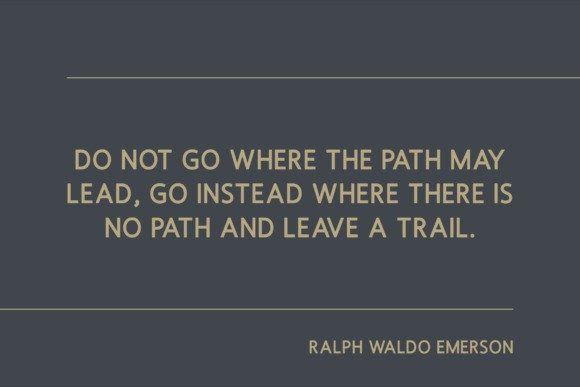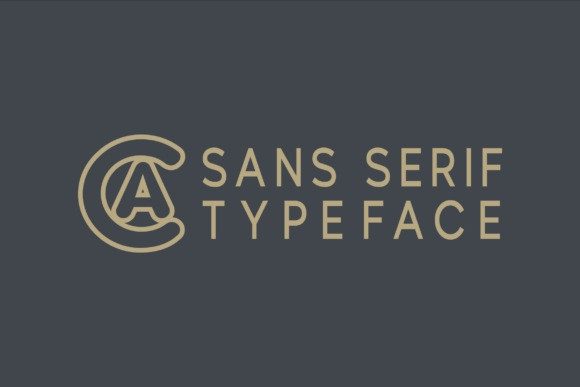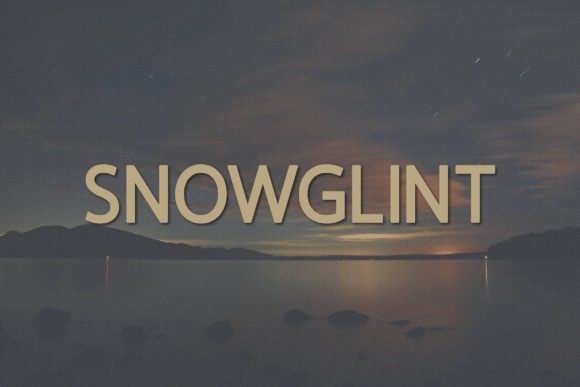
Snowglint Font
Snowglint Font is a clean, elegant sans-serif font that radiates clarity and sophistication.With its crisp lines, balanced proportions, and subtle modern touches, this typeface is perfect for professional and minimalist design work. The font features all uppercase letters, numerals, and essential punctuation—making it ideal for editorial use, branding, tech interfaces, lifestyle blogs, and winter-themed visuals. Its name hints at the soft sparkle of snow in twilight, and Snowglint captures that visual with its refined, no-fuss design. It provides high legibility in both print and digital formats, while maintaining a sense of warmth through its gentle curves and even spacing.
Whether you’re creating logos, headlines, or clean product packaging, Snowglint offers a timeless, versatile solution that’s both contemporary and calming.